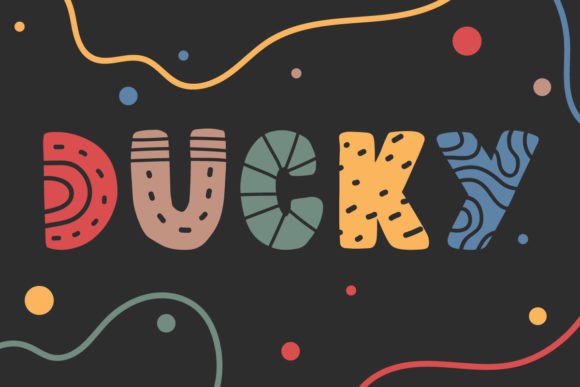
The Quacky Charm of Ducky Font: A Designer’s Delight
I still remember the time I was working on a branding project for a children’s toy company. I had to create a logo that was both fun and sophisticated. As I scrolled through font after font, nothing seemed quite right. That was until I stumbled upon Ducky Font. Its unique blend of cuteness and abstract shapes instantly captured the playful essence of the brand. In this article, I’ll share my experience with Ducky Font, its features, and how to make the most of it in your designs.
An Honest Review of Ducky Font
- ✨ Unique and quirky design with abstract shapes inside the letters
- ✅ Perfect for a wide range of projects, from titles and logos to product packaging and social media
- 💕 Highly legible, even at smaller font sizes
- 🎉 Extensive OpenType features, including glyphs and stylistic alternates
While Ducky Font is an excellent choice for many projects, there are a few things to keep in mind:
- ⚠️ Some of the abstract shapes inside the letters can be a bit distracting if not used thoughtfully
- 🤔 Limited use in very formal or professional contexts, as it may come across as too playful
The Backstory of Ducky Font
Ducky Font was designed by a creative team who wanted to bring a touch of whimsy to the world of typography. Inspired by the playful shapes and lines found in children’s toys and books, they crafted a font that would delight designers and readers alike. The result is a font that’s both fun and versatile, perfect for a wide range of projects.
| Font Name | Ducky Font |
| Author | FONTNDA |
Q: What type of projects is Ducky Font best suited for?
A: Ducky Font is perfect for titles, logos, product packaging, branding projects, magazines, social media, weddings, and more!
Q: Is Ducky Font easy to read?
A: Yes, Ducky Font is highly legible, even at smaller font sizes. However, some of the abstract shapes inside the letters may require a bit more attention when used at very small sizes.